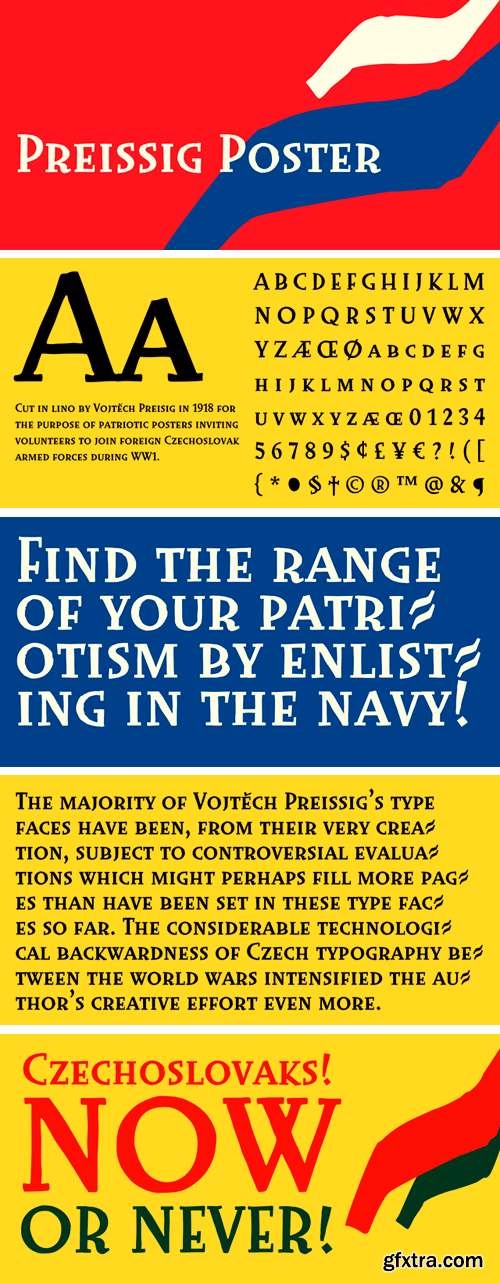
Preissig Poster Font
Cut in lino by Vojt?ch Preisig in 1918 for the purpose of patriotic posters inviting volunteers to join foreign Czechoslovak armed forces during WW1.